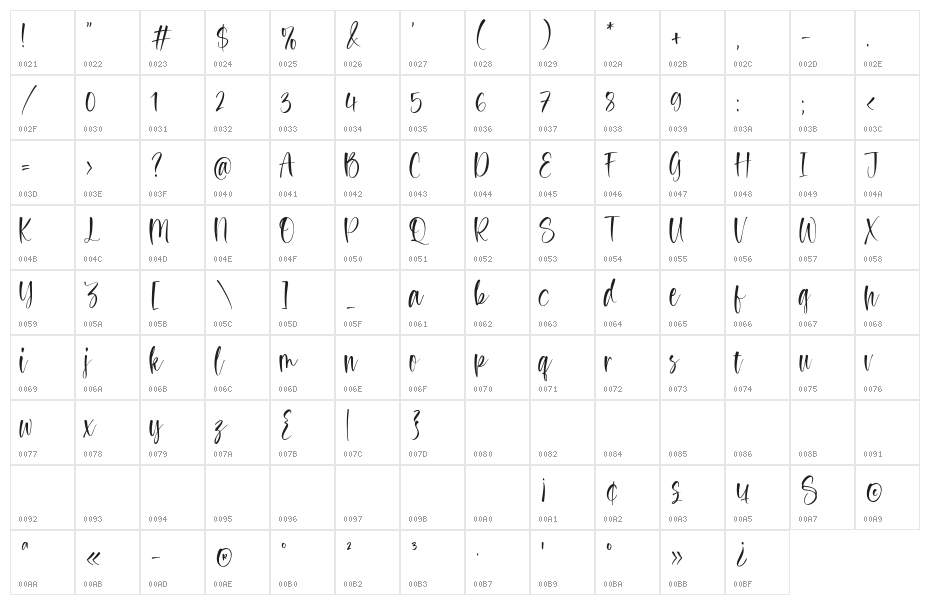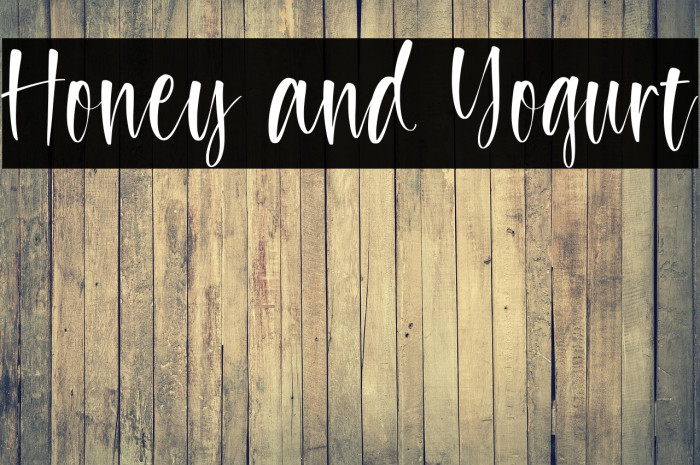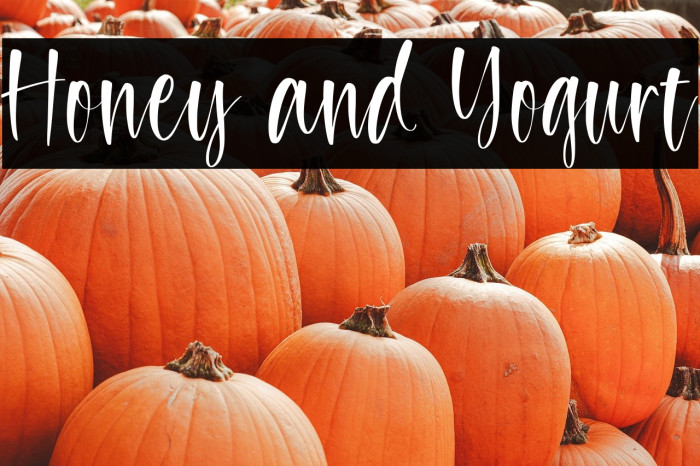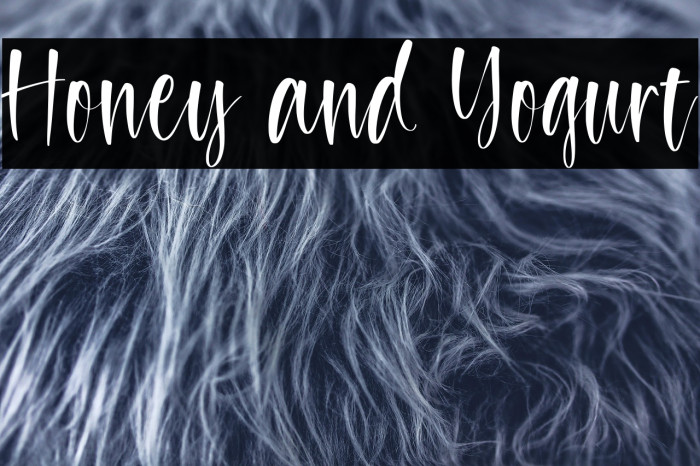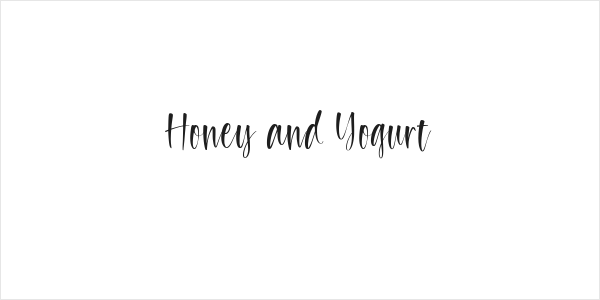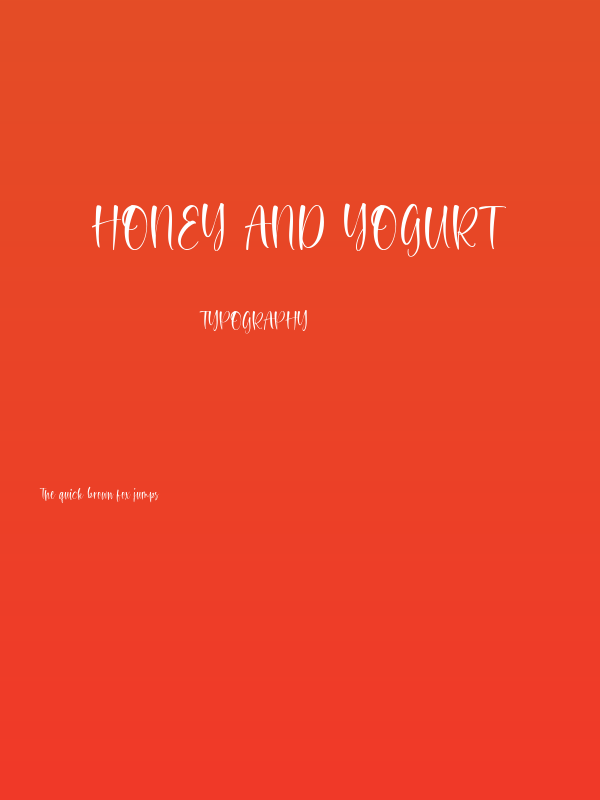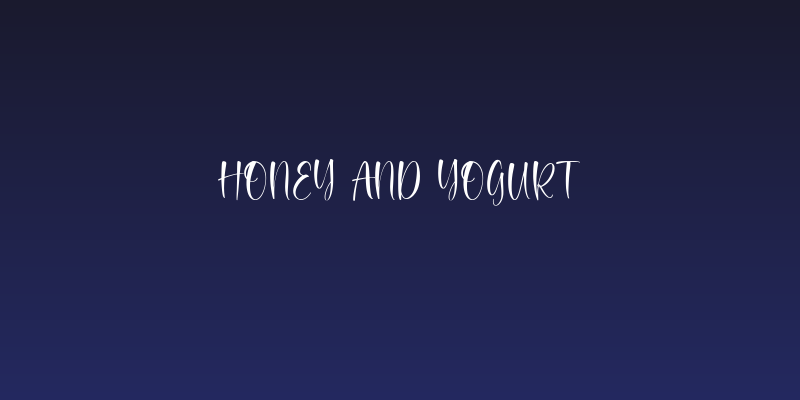
Honey and Yogurt Font
Honey and Yogurt Description
This font exudes a playful and whimsical charm with its handwritten style, characterized by fluid, flowing strokes and a casual elegance. The letters are slightly slanted, adding a dynamic feel, while the varying stroke thickness provides a lively contrast. The uppercase letters are bold and expressive, while the lowercase letters maintain a consistent rhythm, enhancing readability. Numbers and special characters are crafted with the same playful spirit, making this font versatile for creative projects.
| Use Case | Logos, Invitations, Social Media |
| Proposed Projects | Ideal for wedding invitations, greeting cards, branding projects, and social media graphics. |